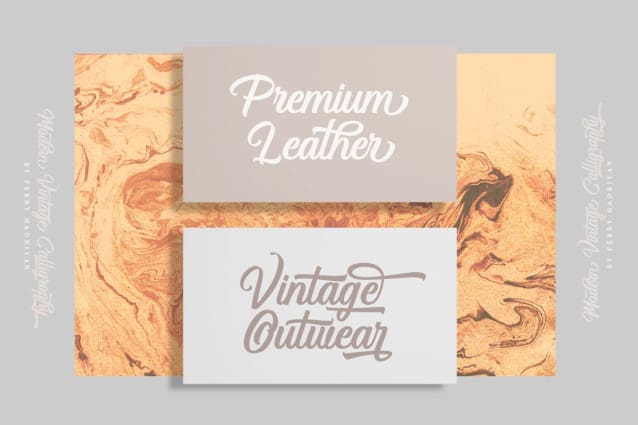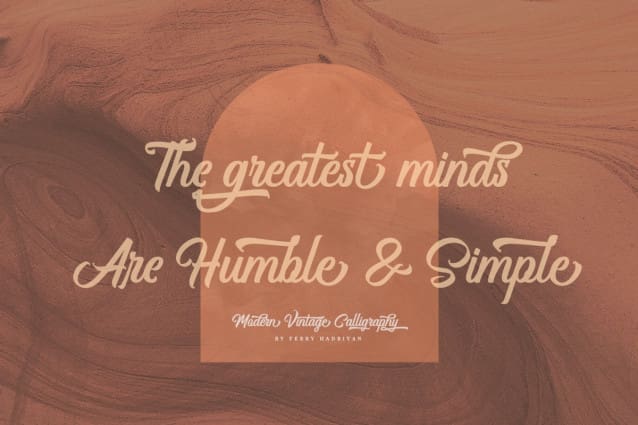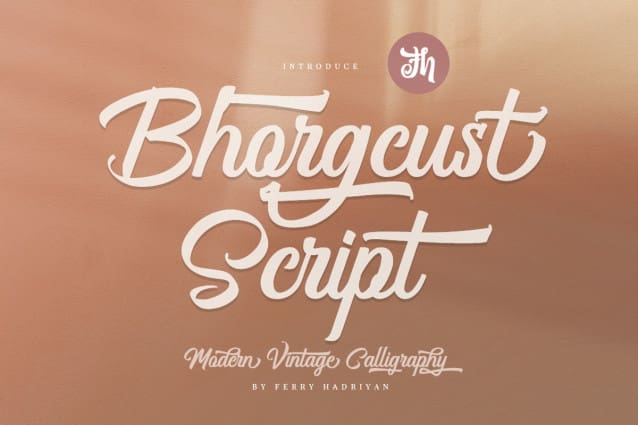
Bhorgcust Script Font
Bhorgcust Script Font is script font with authentic calligraphy style, withelehant swashes combination of letter form, so many opentype feature include of the font. Suitable for design, element design, wedding, event, t-shirt, logo, badges, sticker, and awesome work, etc.